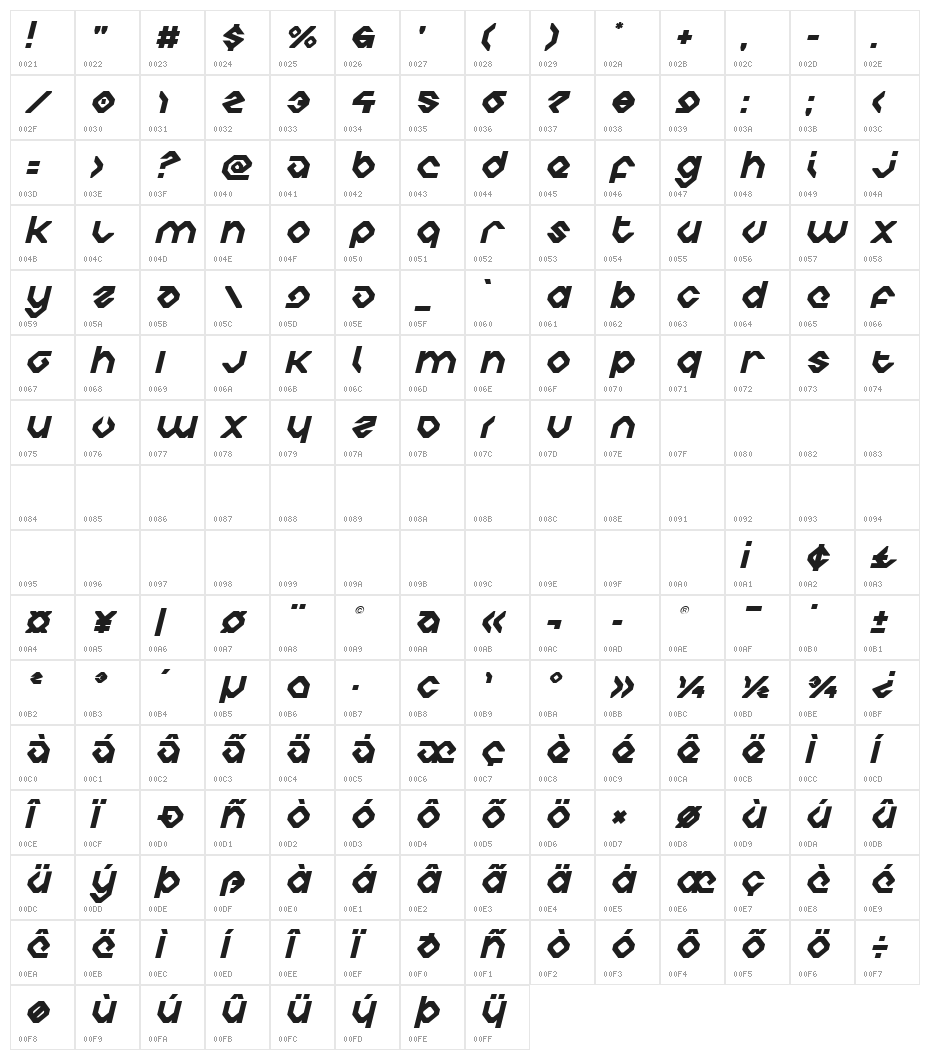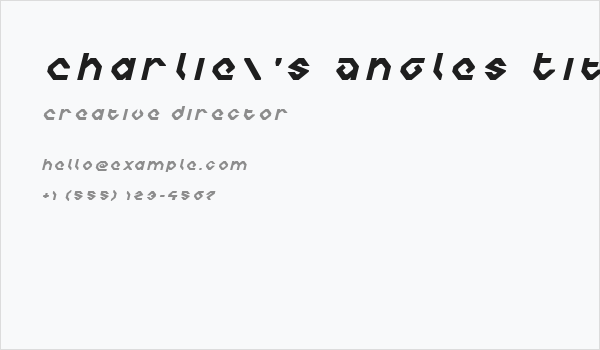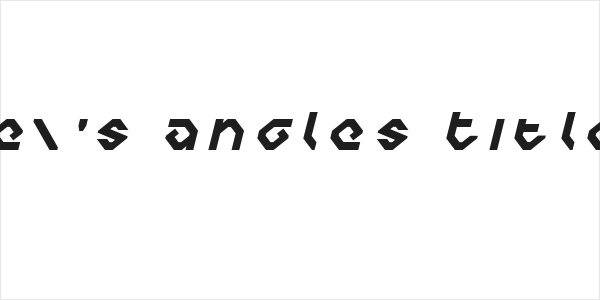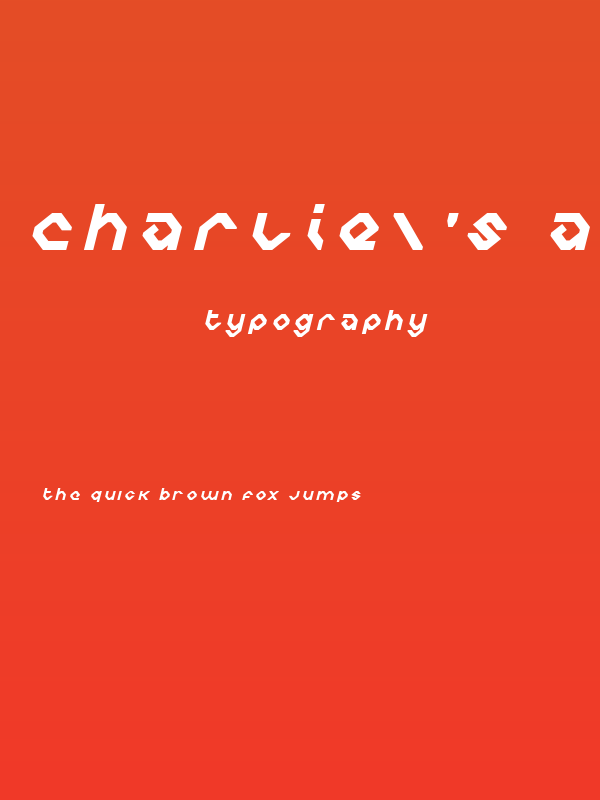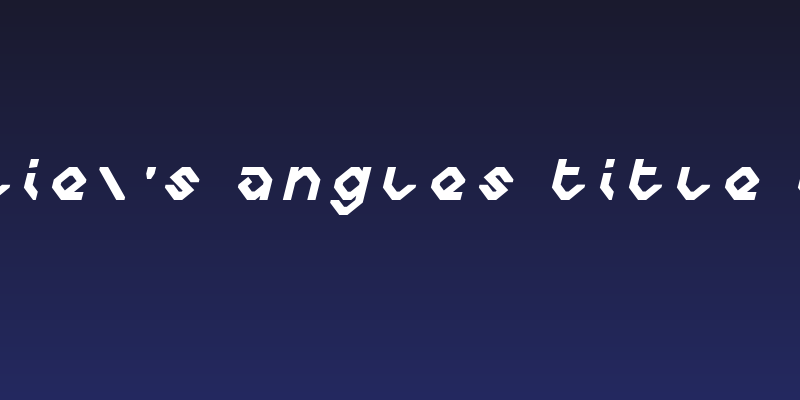
Charlie's Angles Title Italic Font
Charlie's Angles Title Italic Description
This font features a bold, angular design with a distinctly futuristic and geometric aesthetic. The characters are sharply defined with a consistent slant, giving it an italicized appearance. The uppercase and lowercase letters maintain a uniform style, with unique cuts and angles that create a dynamic visual effect. The numerals and special characters follow the same design principles, ensuring cohesion across all elements. This font's strong presence and modern style make it ideal for attention-grabbing applications.
| Proposed Projects | Ideal for movie titles, video game covers, posters, and branding that requires a modern and edgy look. |